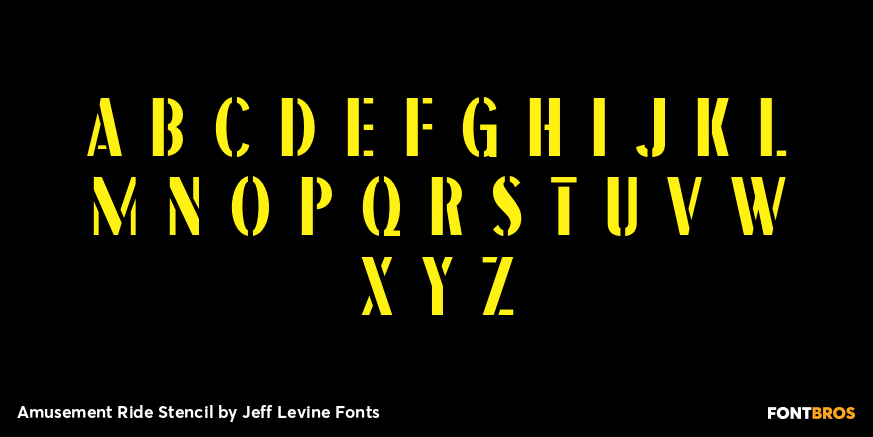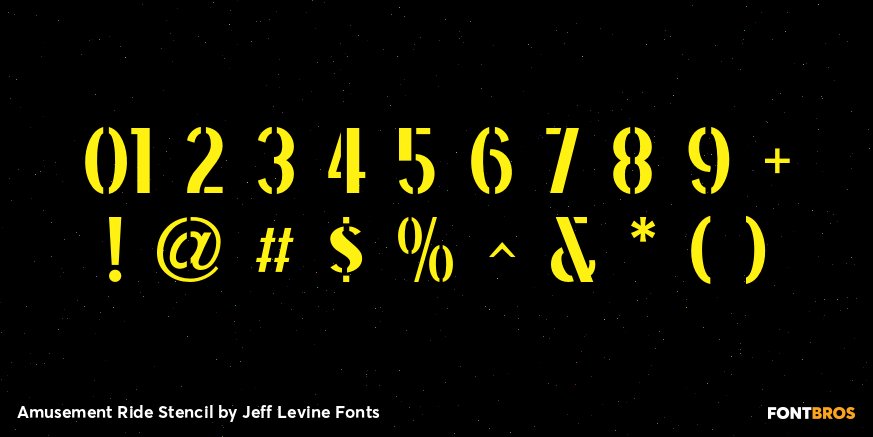
Amusement Ride Stencil
Amusement Ride Stencil JNL is based on a hand-cut paper stencil advising the riders to 'Hold Onto Your Hats – Don't Stand Up – Let's Go Again!”
Available in both regular and oblique versions.